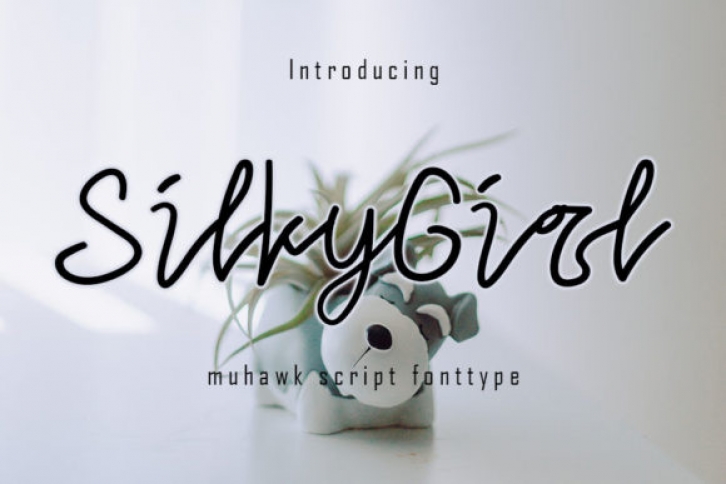
Silky Girl is an elegant handwritten font. Its flexibility and neat style will brighten up each of your designs. Have fun with this cool font and explore its endless variations.